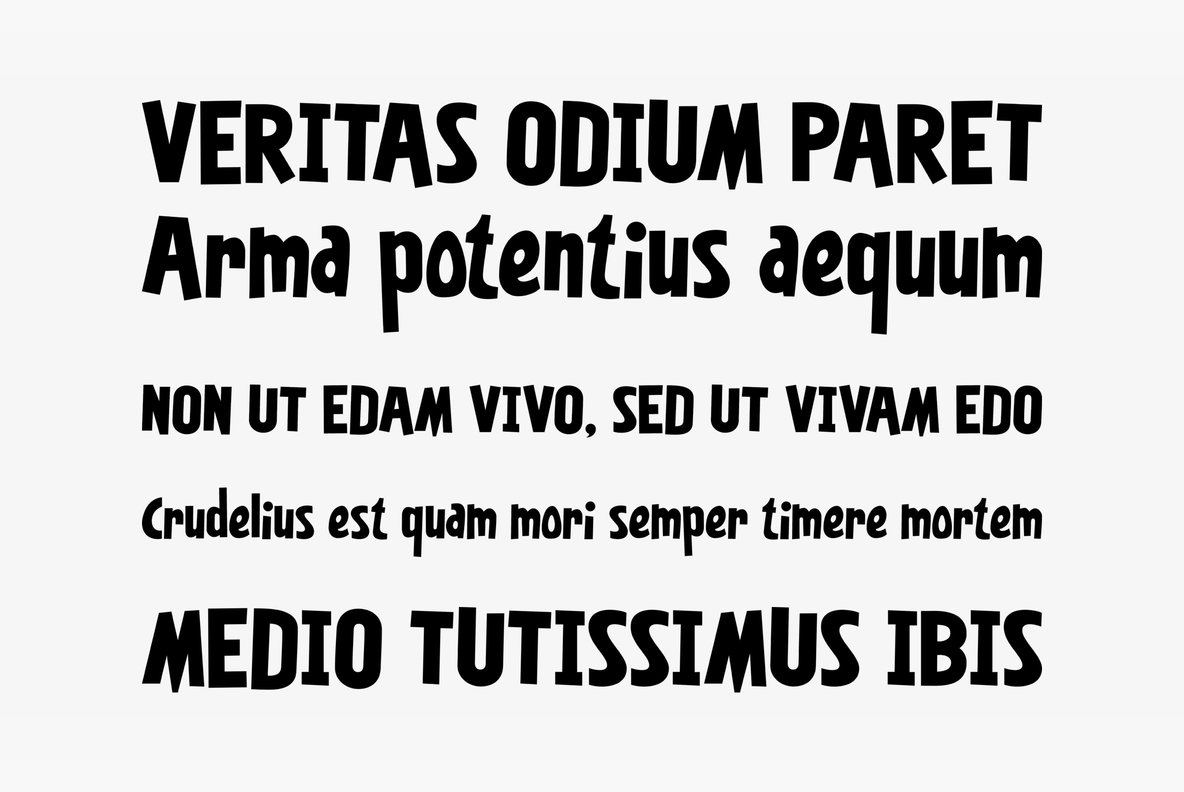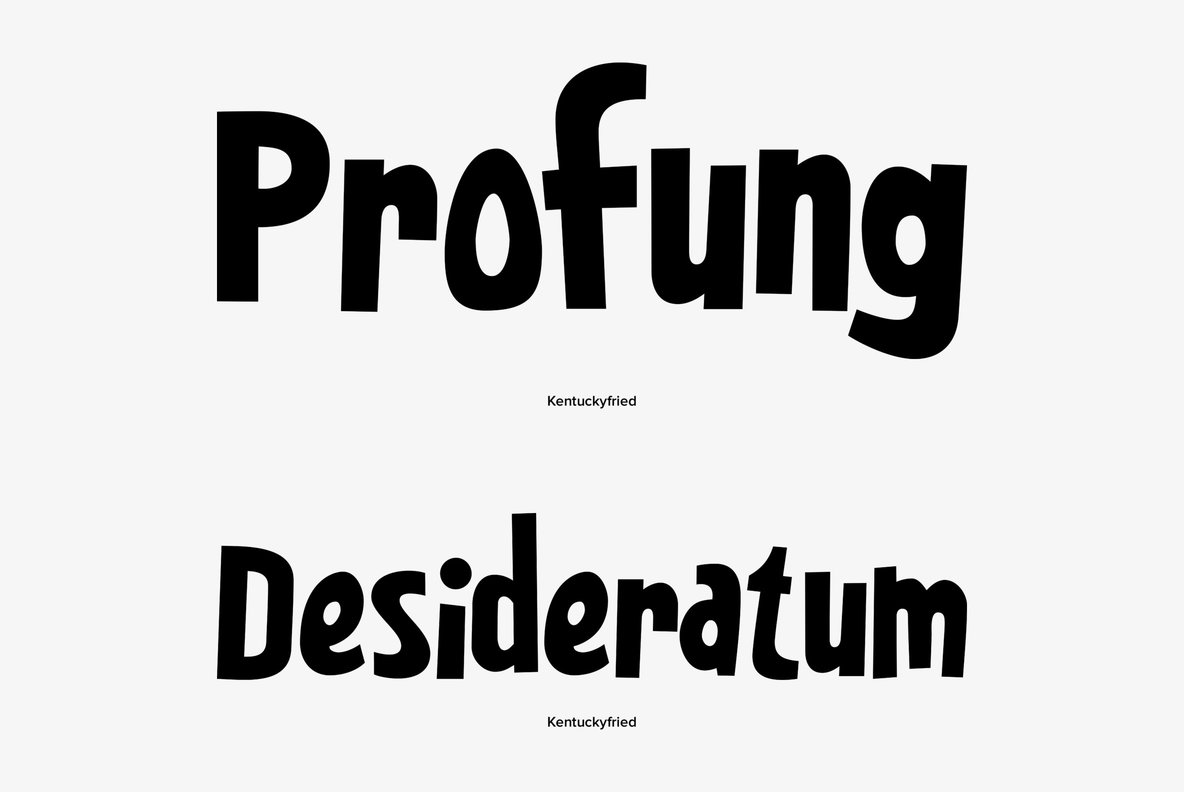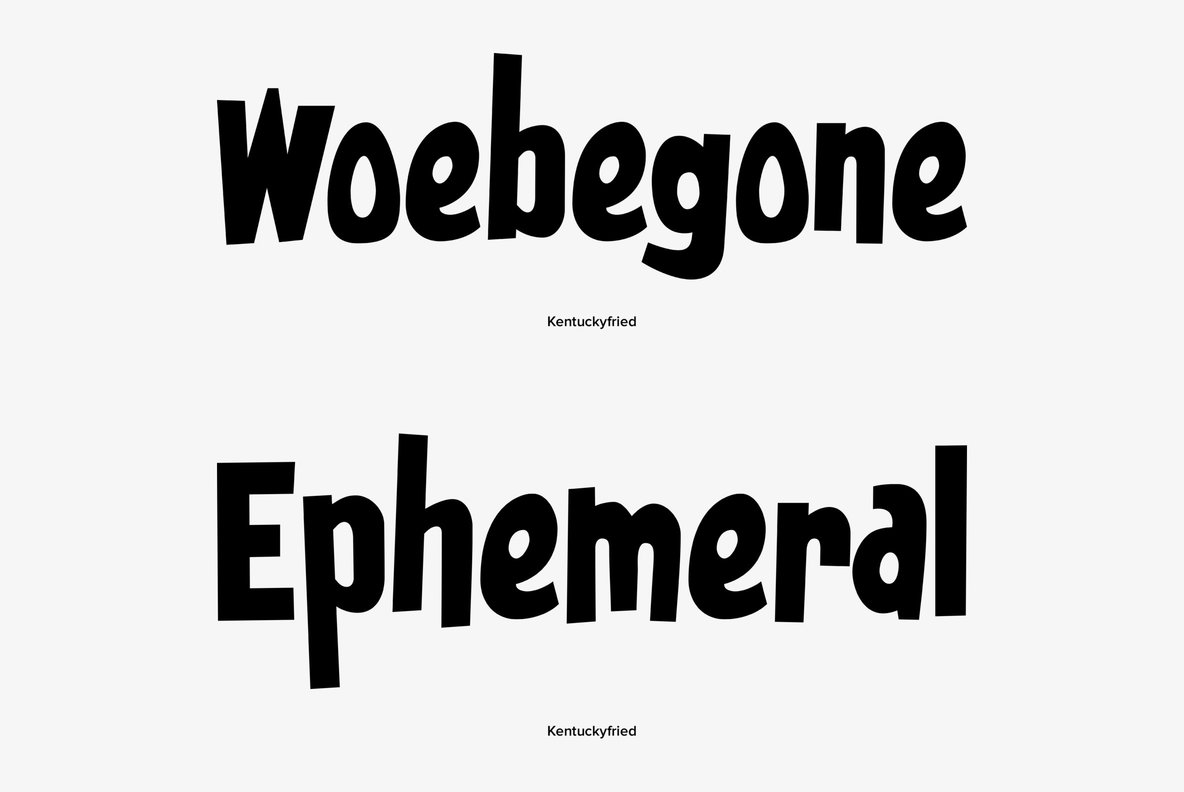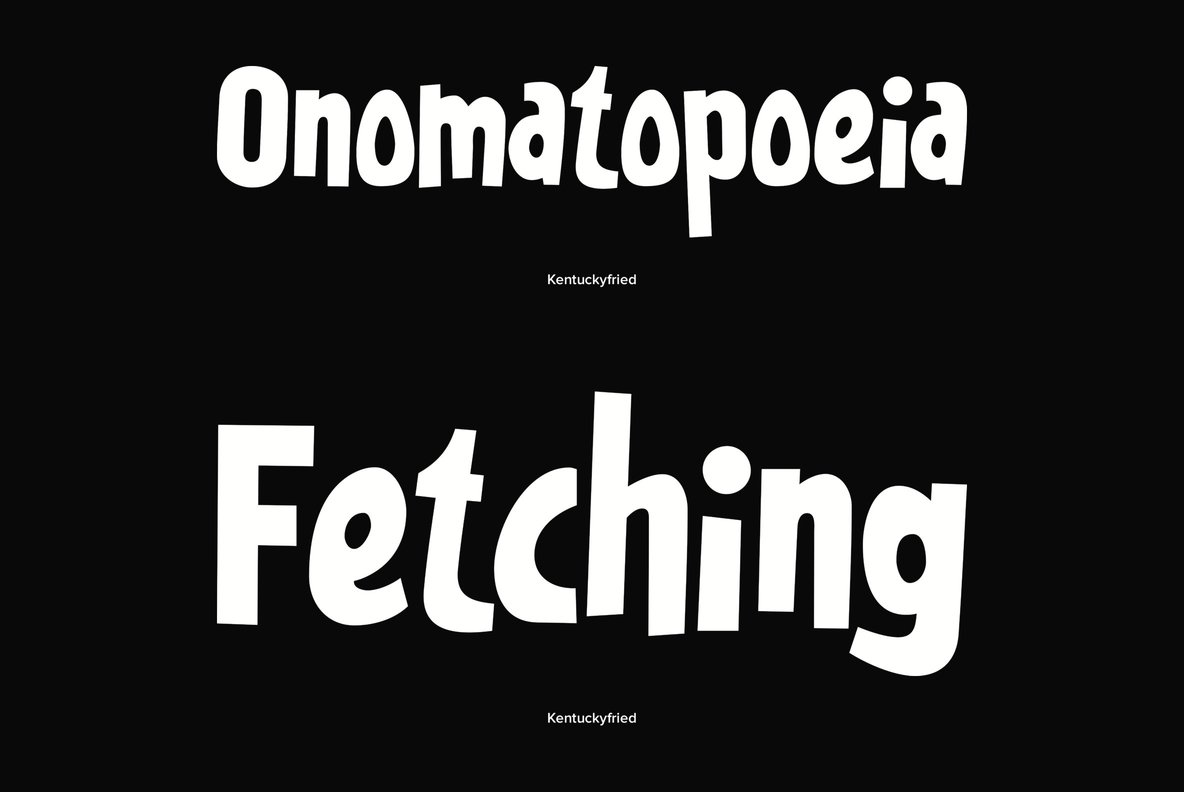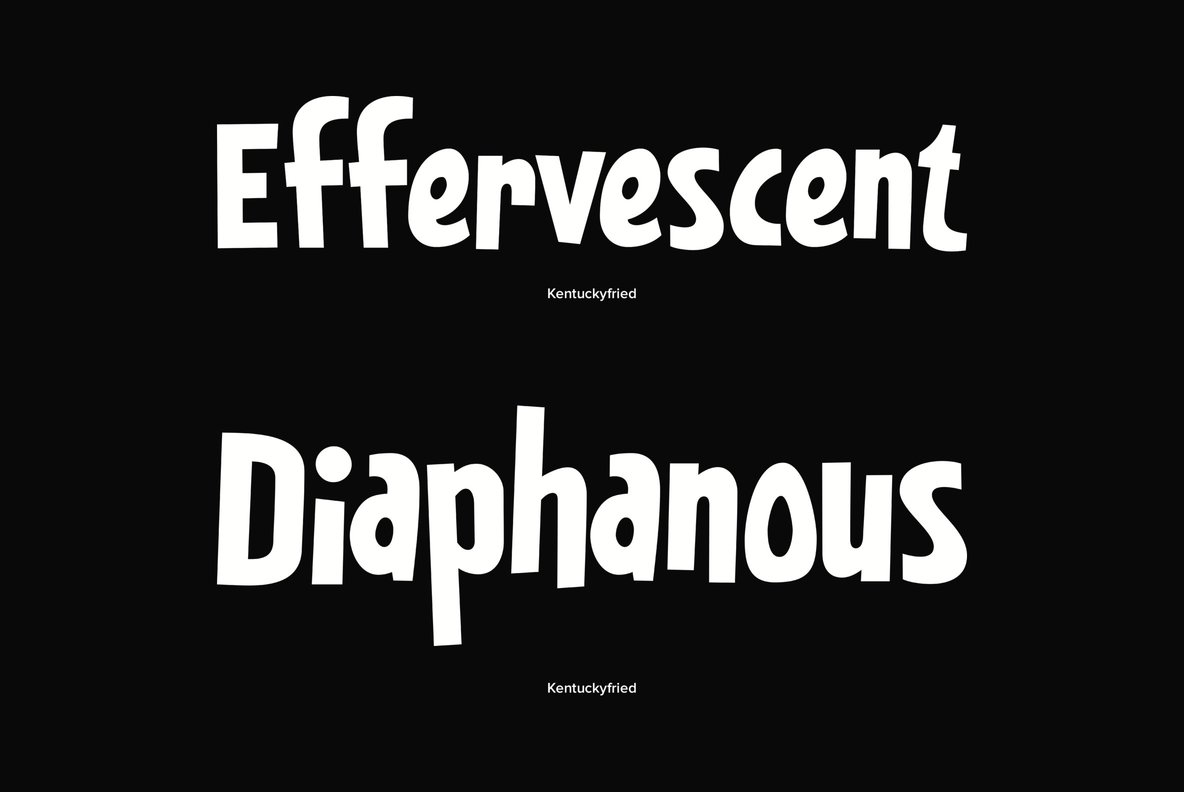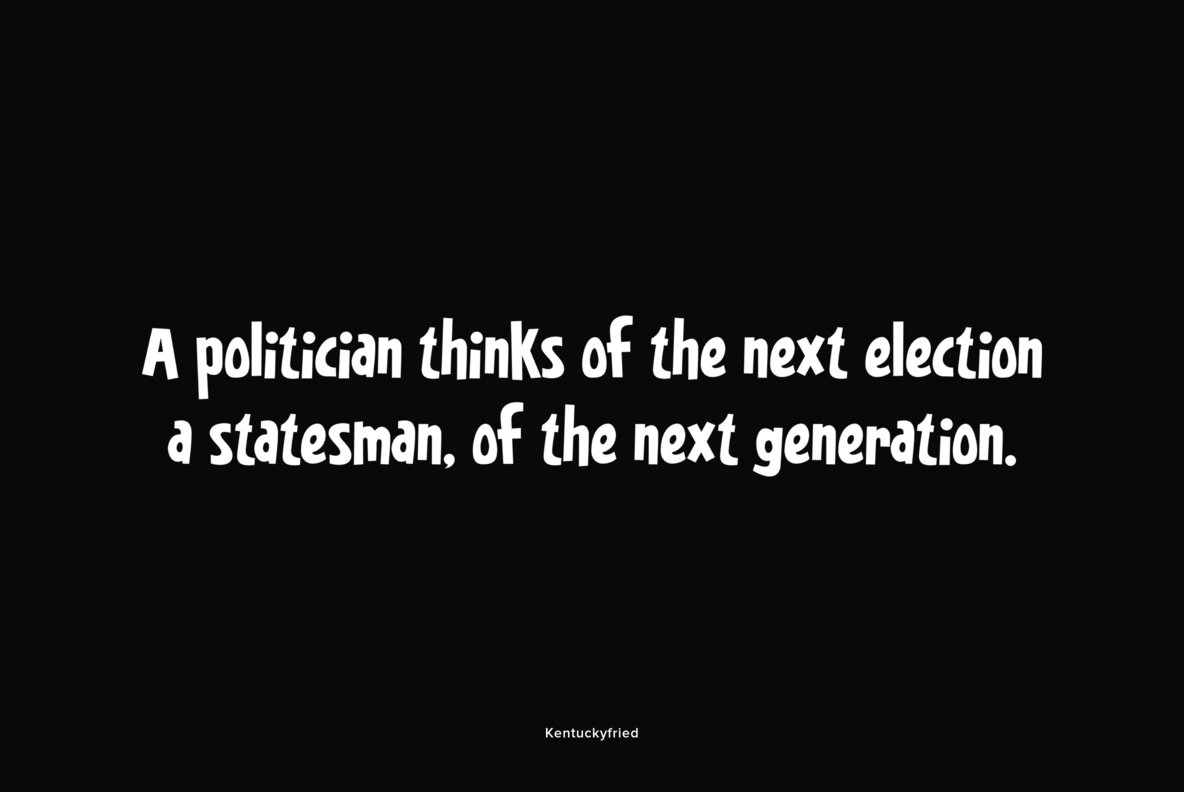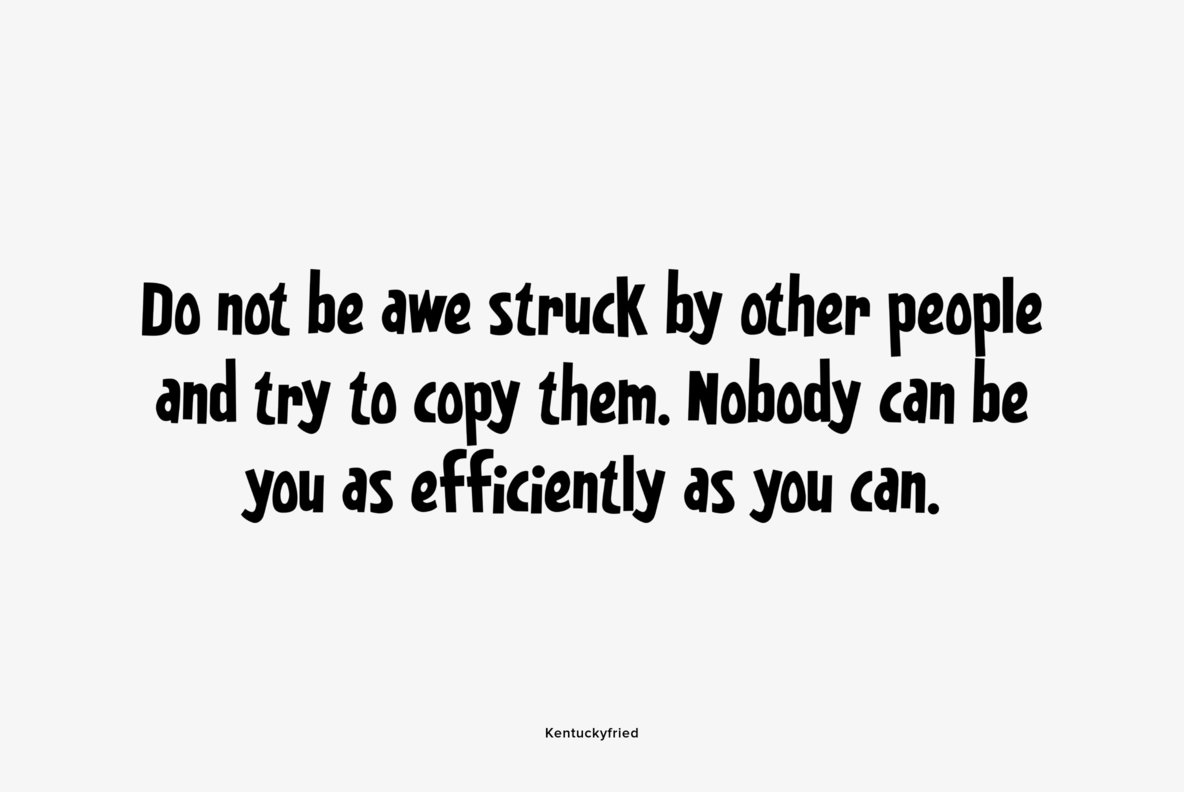
Kentuckyfried
Foundry: Font Diner
Whaddayacall it? Kentuckyfried is the name! It's the deep-fried sensation a-sweepin' the nation! Enjoy this playful sans-serif sure to take you back to sweet childhood days!